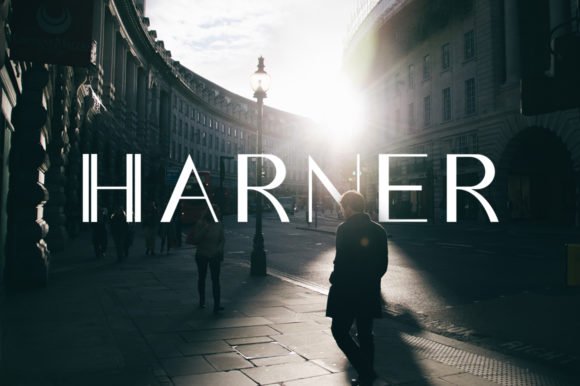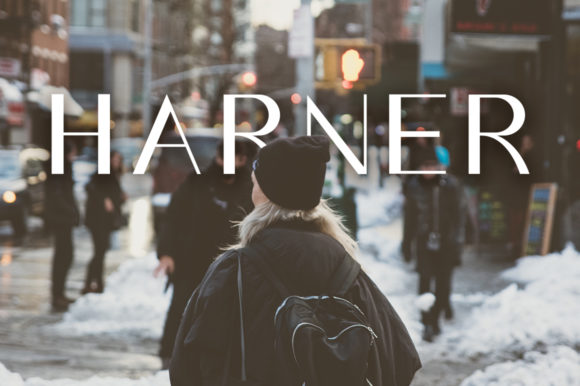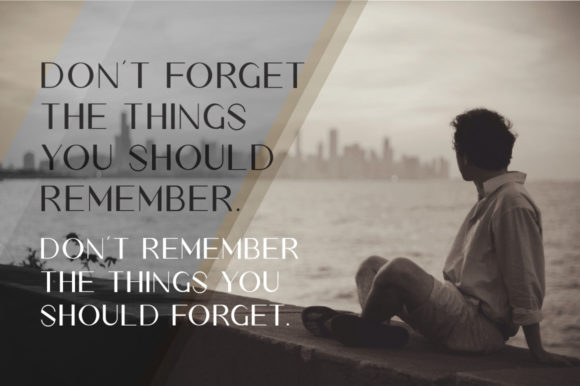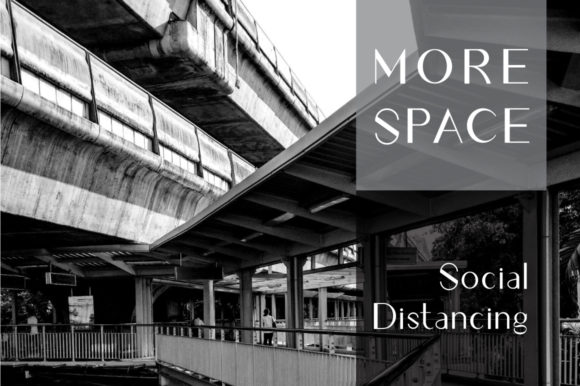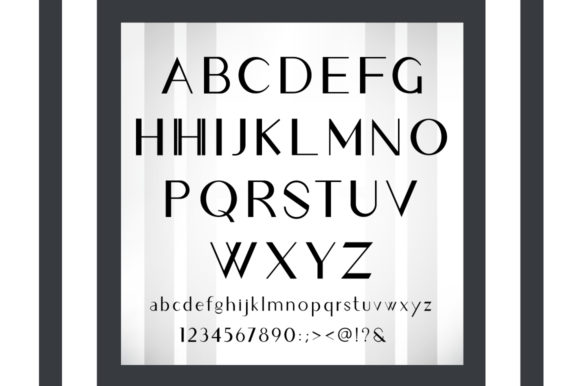
Harner Font
About Harner Font
Harner is a modern handwritten font. It features a classy style that makes it perfect for branding, logos, magazines, flyers, social media posts and more!